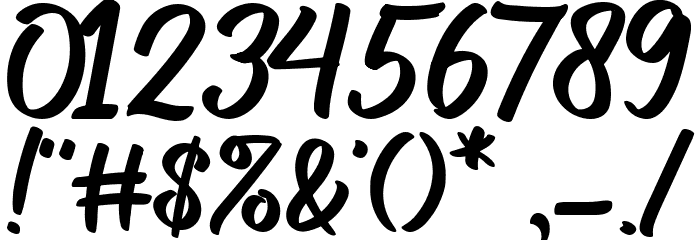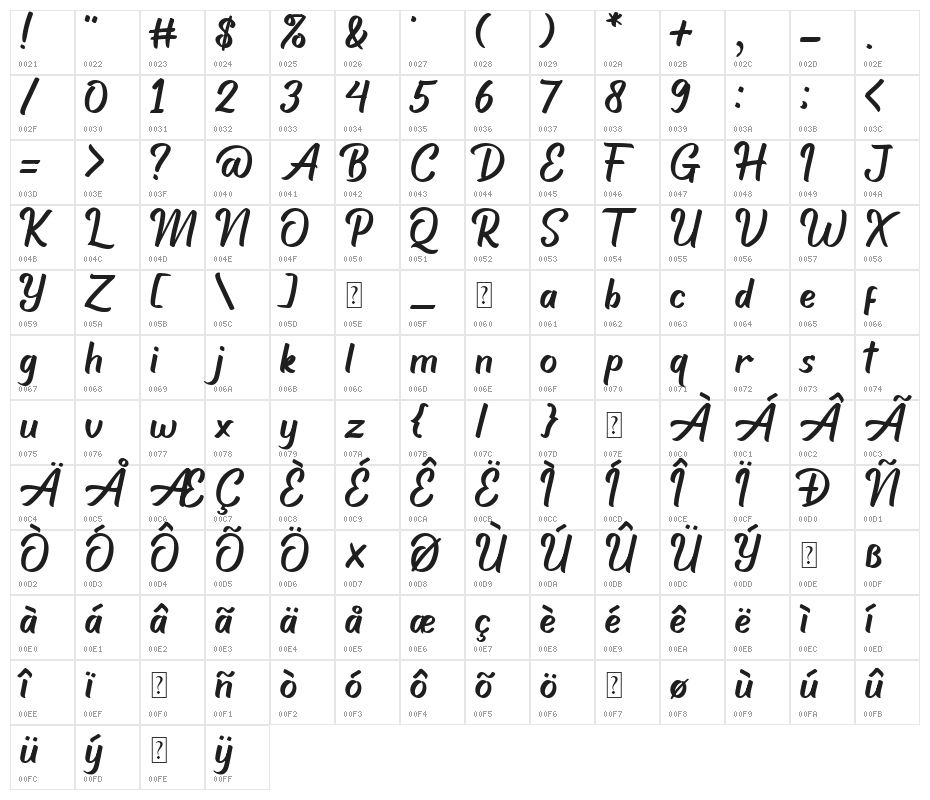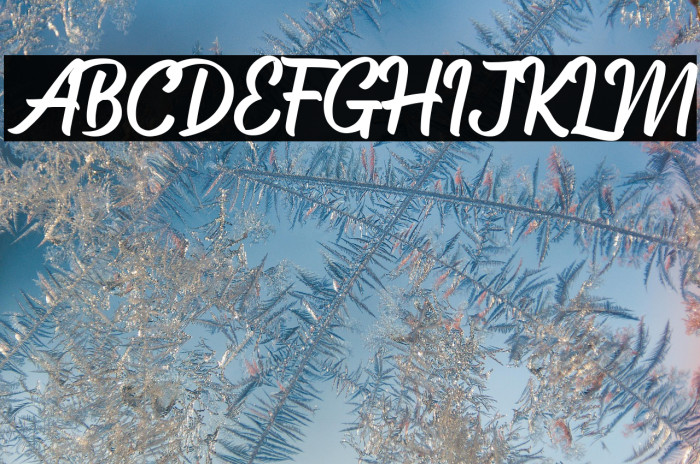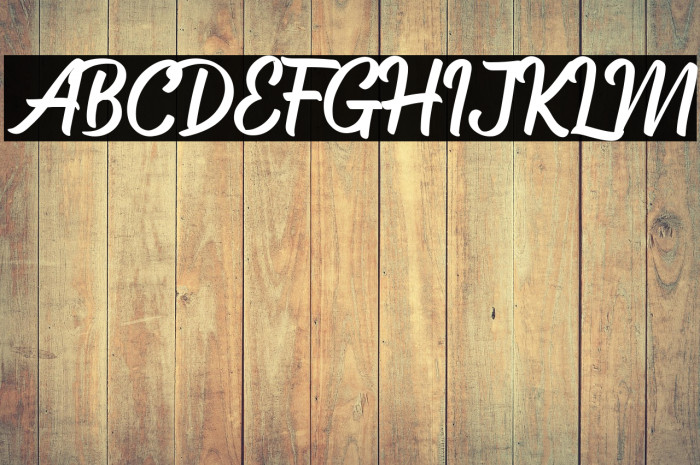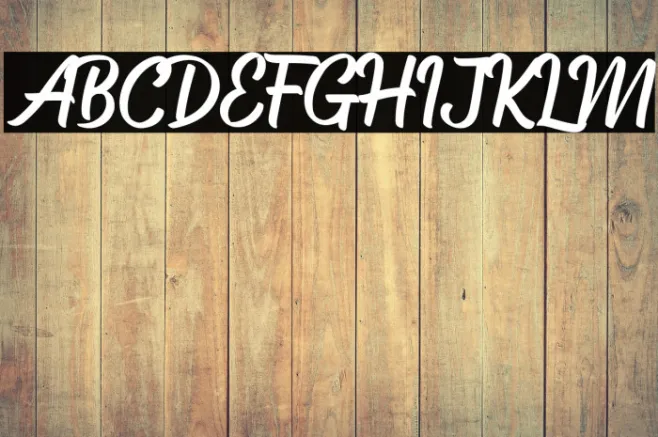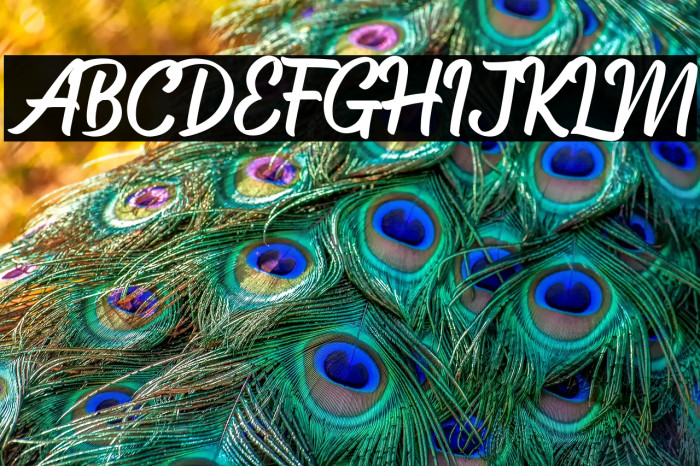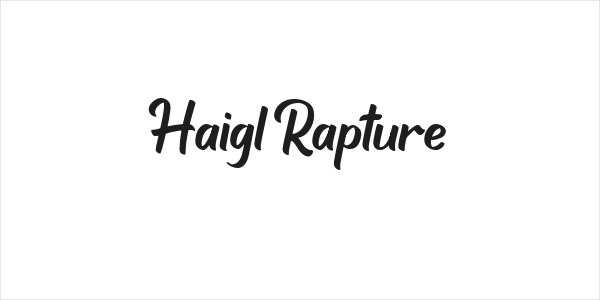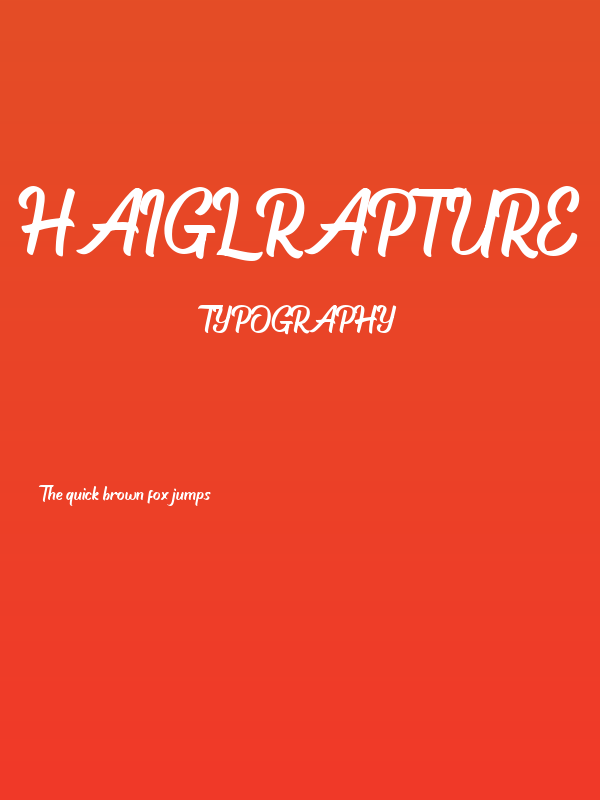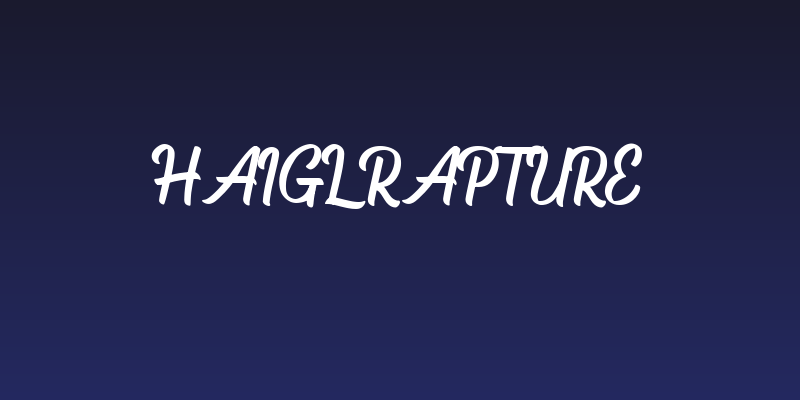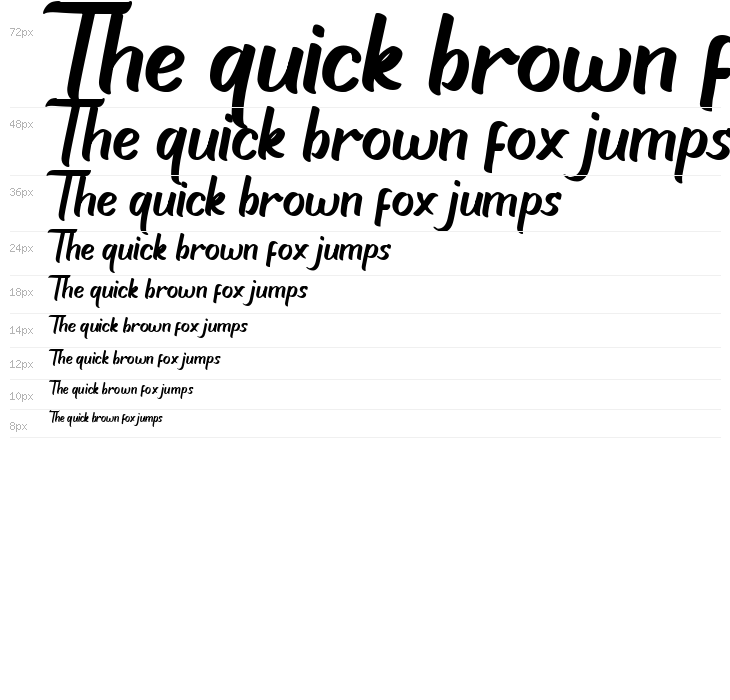
Haigl Rapture Font
Haigl Rapture Description
This font features a bold and expressive script style, characterized by its fluid and dynamic strokes. The uppercase letters are slightly slanted, adding a sense of movement and energy, while the lowercase letters maintain a consistent flow, enhancing readability. The numbers and special characters are crafted with the same attention to detail, ensuring a cohesive look across all glyphs. The overall design is both playful and elegant, making it suitable for a variety of creative projects. The font's unique style is perfect for adding a personal touch to any design, whether it's for branding, invitations, or artistic endeavors.
| Proposed Projects | Ideal for branding, invitations, artistic projects, and creative designs. |